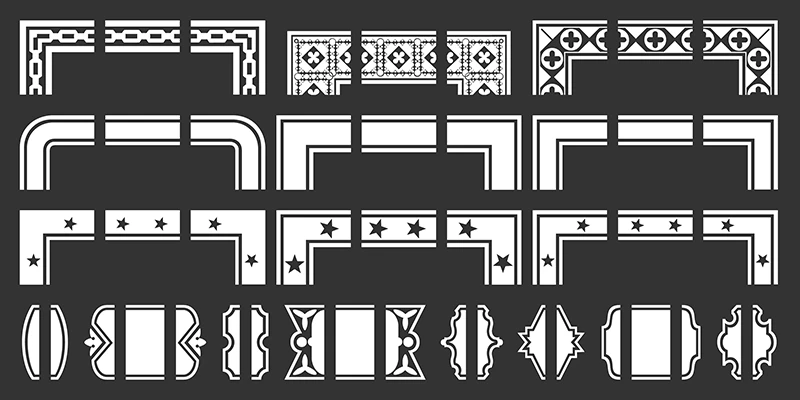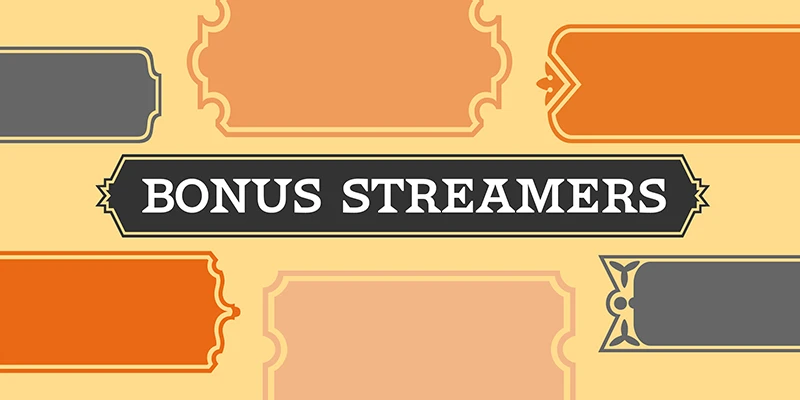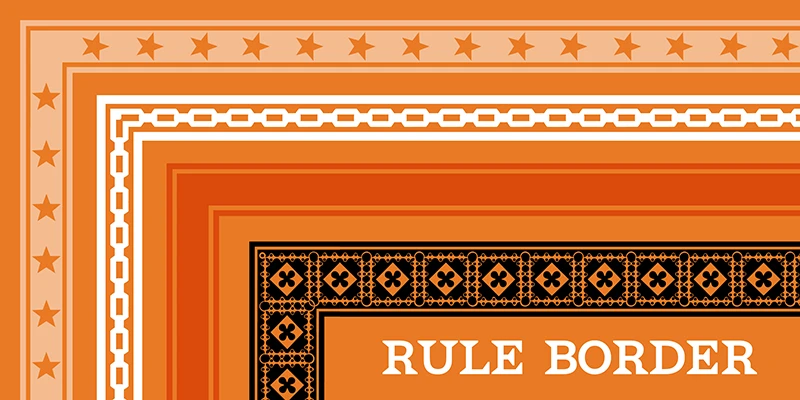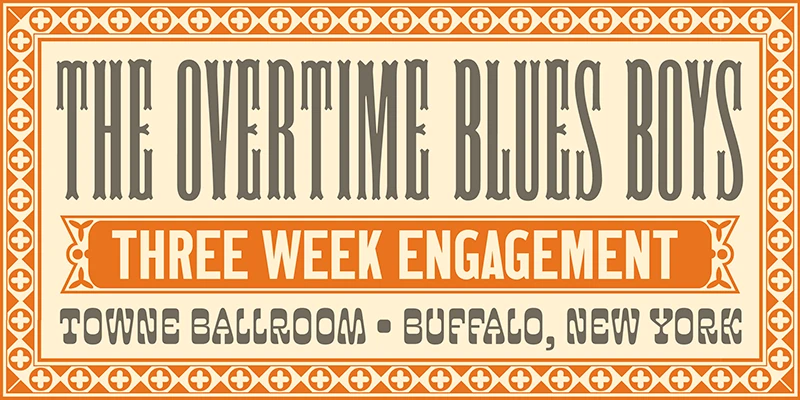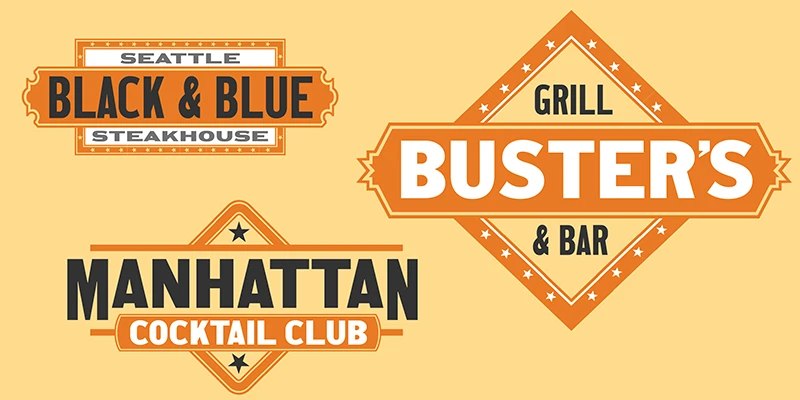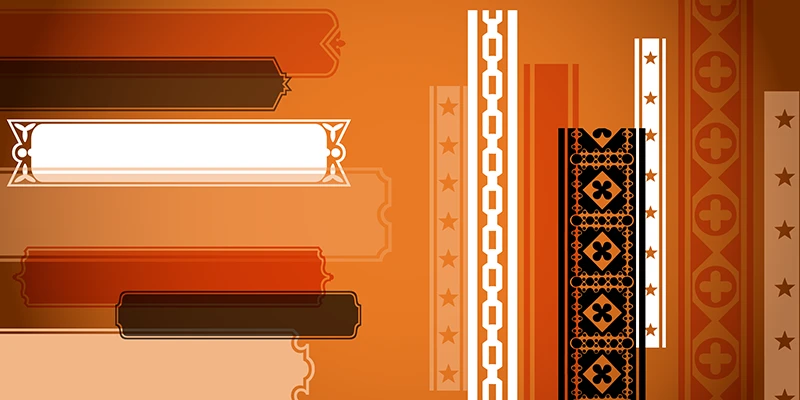
HWT Borders One is a revival of 19th-century typographic borders offering a spectrum from simple to ornate. It features ten decorative borders and eight streamer styles. It has versatility for playbills, certificates, warranties, shop signs, or tiny tickets. The modular construction allows seamless adaptation with the option to enlarge single elements for captivating backgrounds. Borders One showcases Richard Kegler’s appreciation for ornamental type in this concise yet versatile collection.